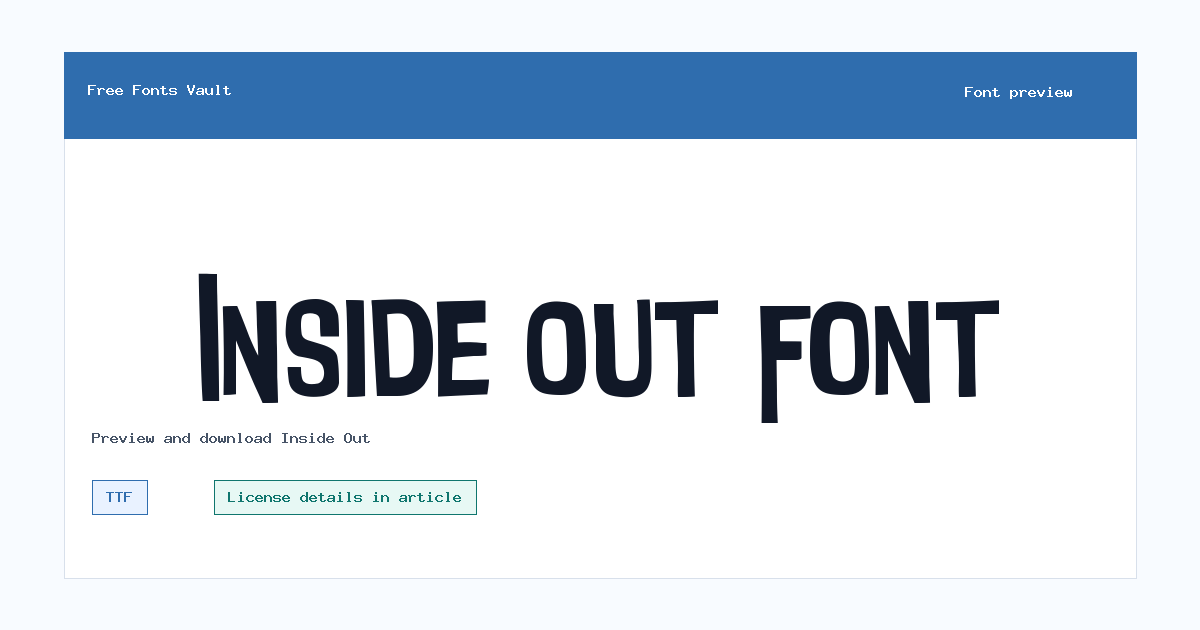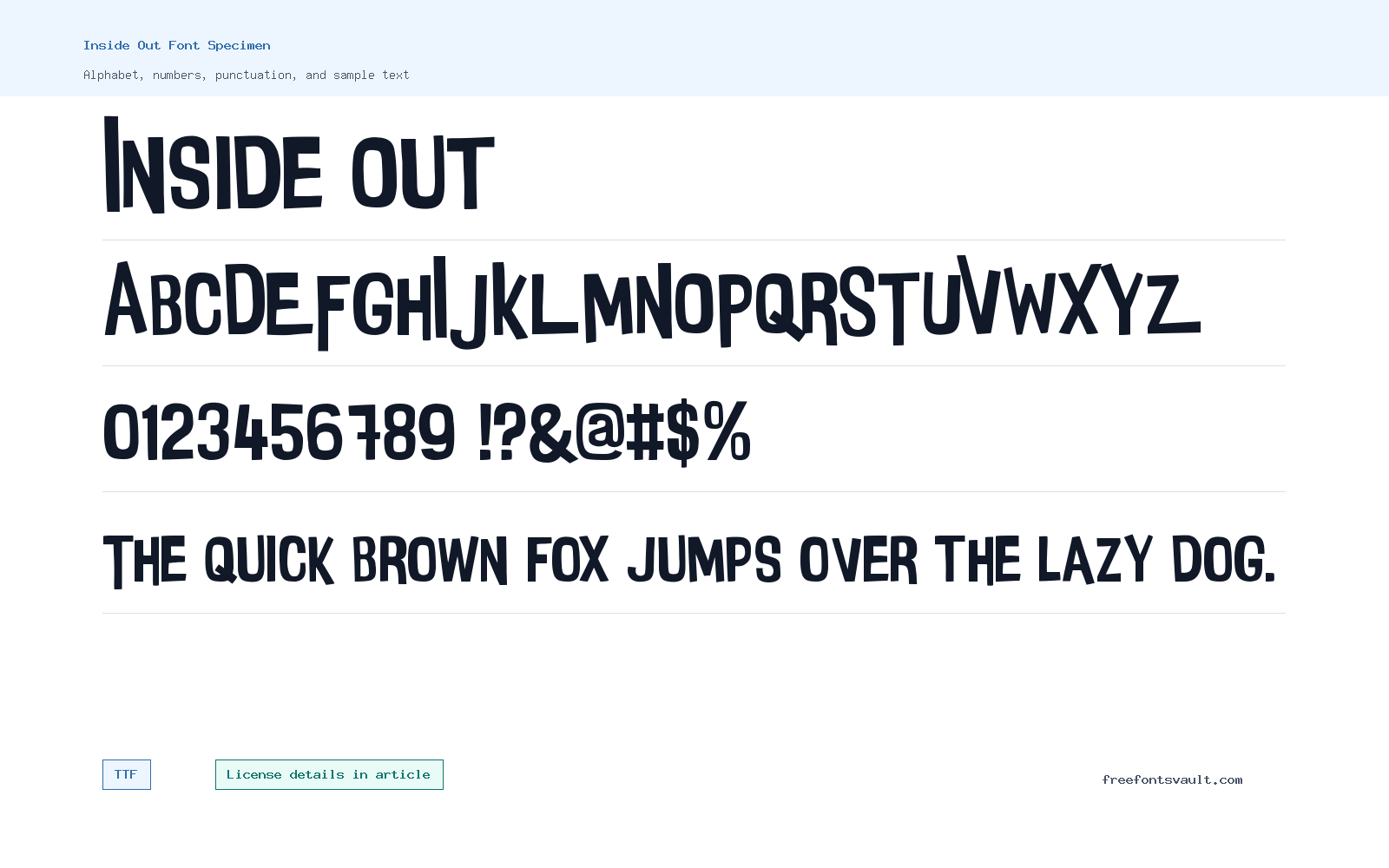
Inside Out
Inside Out font.
Inside Out is a bold condensed display font by 538Fonts, built for loud titles, playful posters, thumbnails, stickers, labels, and short graphic text.
About Inside Out Font
Inside Out has tall, chunky letters with a slightly uneven handmade rhythm. The shapes feel energetic rather than polished, which makes the font useful when a design needs a loud title style, a playful edge, or a poster-like voice.
The font works best in short bursts: names, headers, stickers, party graphics, gaming thumbnails, school project covers, quote images, and social posts. It is less comfortable for paragraphs because the condensed width and heavy strokes can become tiring over long lines.
Inside Out is strongest when the typography is meant to be noticed immediately. It can carry a title on its own, but it should not compete with too many other decorative elements. Keep icons, textures, and background patterns under control so the bold condensed letters remain the main focus of the design.
- Tall letterforms that create strong poster-style impact
- Playful irregular edges that feel less formal than a clean sans
- Works best for short titles, names, and graphic callouts
- Pairs well with a plain sans serif for supporting text
- Posters, thumbnails, stickers, and playful title graphics
- Party flyers, game-style graphics, classroom covers, and social posts
- Short labels, names, badges, and energetic display text
- Designs that need bold personality without a polished corporate tone
- Mockups where a strong condensed title face is needed quickly
What kind of font is Inside Out?
It is a bold condensed display-style TTF font with a lively handmade feel.
Who made Inside Out?
The font is credited to 538Fonts.
Is Inside Out good for long text?
No. It is better for short headings, titles, stickers, and graphic callouts.
What should I pair it with?
Pair it with a simple sans serif for body copy so the bold display style remains easy to read.